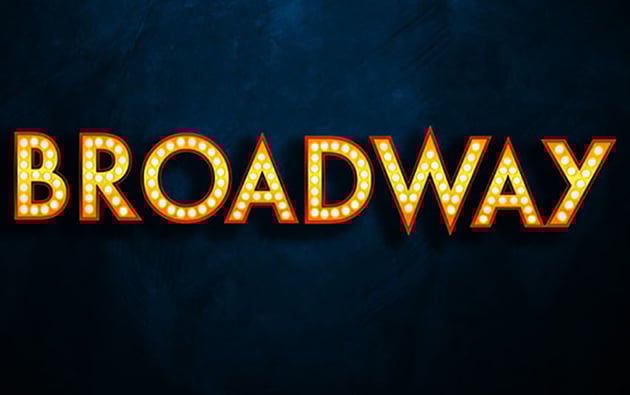
21 Best Marquee Fonts and Effects (Fonts That Look Like Broadway Lights!)
Marquee signs are guaranteed to attract attention so they are a great option when you want to create eye-catching signage.
Marquee Lights Font (SVG)
Let's start things off with this terrific marquee sign font. It's a great font for creating truly outstanding signs.
Disc Marquee Sign Letters Font (OTF)
Disc Marquee Sign Letters Font isn't quite as photorealistic as some of the other fonts featured here, but it does replicate the look of the marquee sign nicely. The font’s handcrafted feel lends itself to all types of projects from logos to greeting cards.
Alphabet Marquee Font (PNG)
Create your own unique text with this movie marquee font. The design combines 3D lettering with and without light bulbs, so you have some great options for mixing and matching your design.
Broadway Marquee Letters Font (AI, EPS)
How about Broadway Marquee Letters Font for your next project? This collection of vector graphics are fully customisable in Adobe Illustrator, and you can resize the files without loss of quality.
Marquee Font (PNG)
This wonderful marquee letters font is just what you need when you want to create a marquee sign with an authentic vintage touch. The letters are all PNGs, so they come with a transparent background and are fully editable to create just the text you want.
Movie Marquee Font (PNG)
Here's another striking marquee sign font you can use when you are looking for a font that looks like Broadway lights. The high-res files offer realistic 3D design from five unique angles so that you can create different looks easily.
Font for Marquee Letters (PNG)
Dazzle your audience with Font for Marquee Letters, which offers marquee light PNG letters so that you can create realistic 3D light bulbs text with flair. An excellent option for creating stunning signs, posters, logos and more.
Vintage Marquee Font (PNG)
This vintage marquee lights font is a great choice when you want to bring some of that old Broadway glamour to your text. The letters are presented in high-resolution files that are fully editable in Photoshop.
Vintage Marquee Lights Font (PNG)
This movie theater marquee font is just what you need to make an impact. A great choice for posters, signage, advertising, and more, Vintage Marquee Lights Font includes five different views for maximum versatility.
Retro Light Bulbs for Marquee Font Lovers (PNG)
Marquee Lights fonts are definitely a look, but there are other retro light bulb fonts available at Envato Elements that you may love, like Retro Light Bulbs for Marquee Font Lovers.
Colorful Neon 3D Lettering (PNG)
You could also consider neon style lettering like this one, which is certainly a showstopper. The PNG file contains all uppercase characters, numbers, and some special characters.
Bold Neon 3D Lettering (PNG)
Well, of course neon can have many different looks, so if the previous design isn't for you, how about this neon style lettering with graphic elements, which is certainly a stunner. The letters are offered with four different angles so that you have a lot of room for experimentation.
Script Neon 3D Letters (PNG)
And if your taste runs towards the more traditional look of neon, you'll love Script Neon 3D Letters. The set contains all uppercase characters, numbers, and some special characters as well.
Let’s take a look at some of the premium marquee letters fonts offered at GraphicRiver.
Movie Theatre Marquee Font (PSD, PNG)
Check out Movie Theatre Marquee Font when you want to capture that retro marquee look in your projects. The set offers three different lettering versions, so you have plenty of options for experimenting.
Vintage Marquee Font (PSD, PNG)
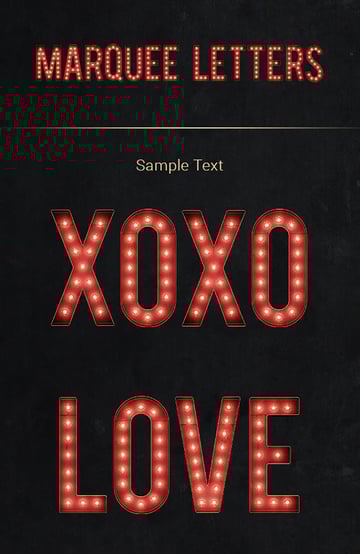
Use Vintage Marquee Font to create your own personalised marquee sign. The files contain a complete set of uppercase characters, numbers, and symbols. Don't like the default red colour? You can easily change it by adding a Hue/Saturation or Curves adjustment layer in Photoshop.
Movie Theatre Marquee Font (PSD, PNG)
When you need a font that looks like Broadway lights, look no further than Movie Theatre Marquee Font. This terrific 3D set offers a complete set of uppercase letters so that you can create the text you need for your next project.